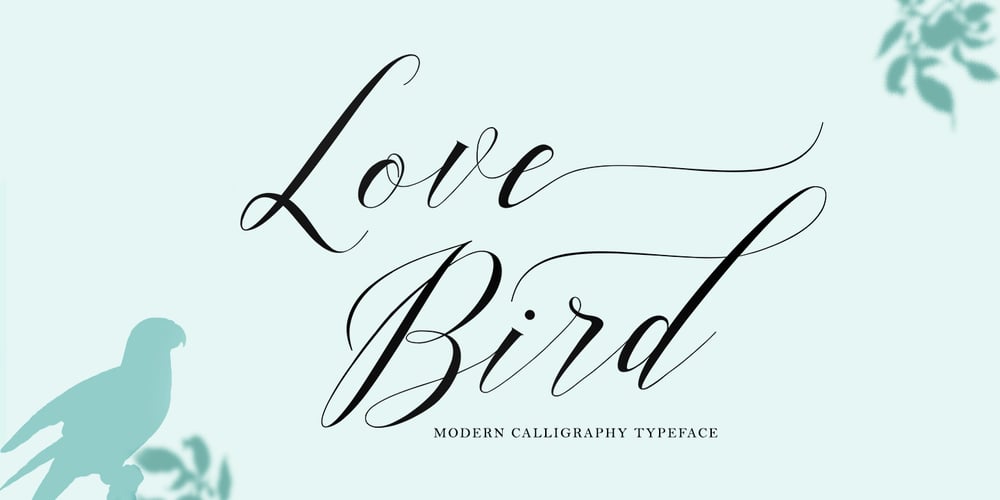
Love Bird Font Family was designed by Iqbal Amsar Hidayat and published by Bal Studio. Love Bird contains 1 styles and family package options. Love Bird Script is a stylish calligraphy font that features a varying baseline, smooth line, classic and elegant touch. Can be used for various purposes such as headings, signature, logos, wedding invitation, t-shirt, letterhead, signage, labels, news, posters, badges etc. Love Bird Script features 213 + glyphs and 143 alternate characters. including initial and terminal letters, alternates, ligatures and multiple language support. To enable the OpenType Stylistic alternates, you need a program that supports OpenType features such as Adobe Illustrator CS, Adobe Indesign & CorelDraw X6-X7, Microsoft Word 2010 or later versions. How to Access Alternate Characters in Photoshop CC. https://www.youtube.com/watch?v=xFlMwARHusY How to access all alternative characters using Adobe Illustrator: https://www.youtube.com/watch?v=XzwjMkbB-wQ How to use stylistic sets font in Microsoft Word 2010 or later versions: https://youtu.be/x1A_ilsBsGs https://www.youtube.com/watch?v=NVJlZQ3EZU0 There are additional ways to access alternates/swashes, using Character Map (Windows), Nexus Font (Windows), Font Book (Mac) or a software program such as PopChar (for Windows and Mac). How to access all alternative characters, using Windows Character Map with Photoshop: https://www.youtube.com/watch?v=Go9vacoYmBw Need help? If you need help or advice, please contact me by e-mail “balstudio2018@gmail.com” Thank you for your purchase!